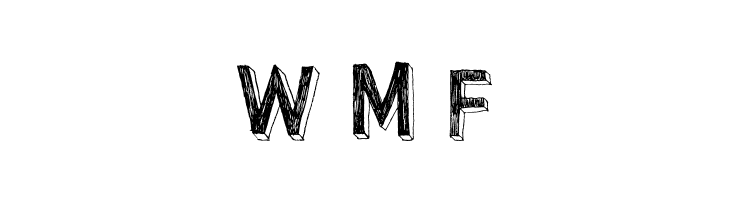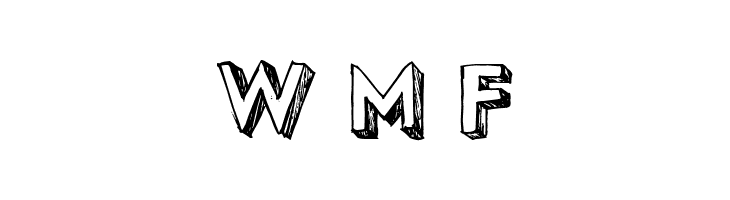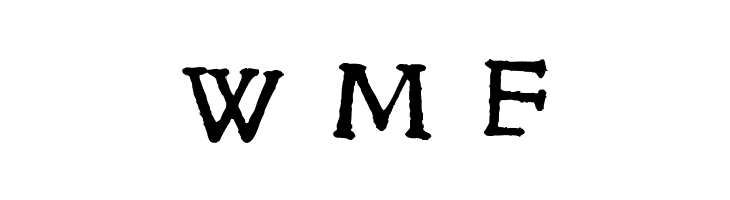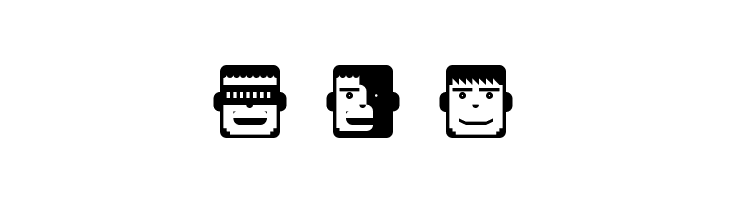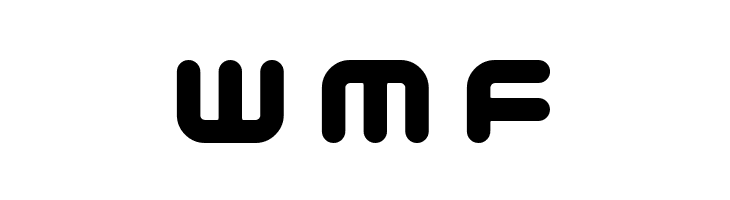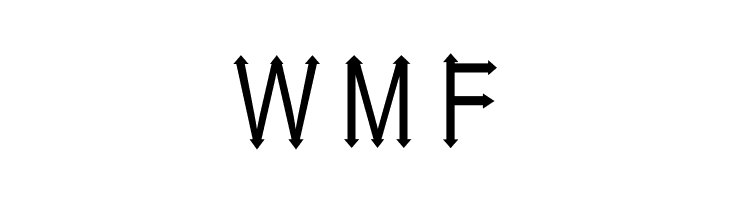
A bold, geometric font with angular shapes and a modern aesthetic.
A bold, rounded, and modern font with a futuristic appeal.
A bold, modern font with arrow-like points extending from each character.
A bold, hand-drawn font with a sketch-like, three-dimensional appearance.
A bold, hand-drawn font with a textured, sketch-like appearance.
Hand-drawn, doodle-style decorative font with playful icons.
A rustic, hand-drawn font with a medieval, vintage feel.
A playful font with characters designed as stylized faces, perfect for creative and humorous projects.